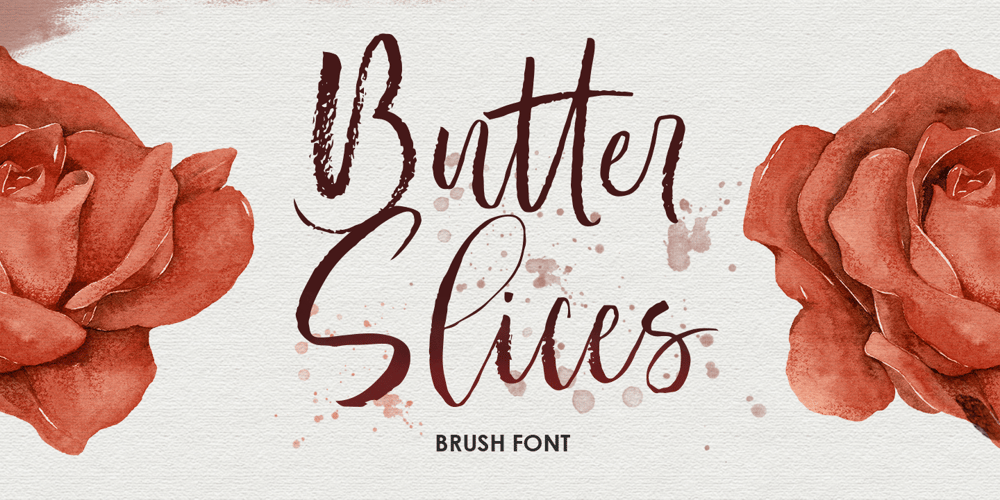
Butter Slices
Butter Slices font
Butter Slices Font Family was designed by Hendry Juanda and published by Letterhend. Butter Slices contains 1 styles and family package options. Introducing, Butter Slices – Brush Script. A beautiful modern calligraphy script based on manual hand writing. The natural flow with the swashes make this font looks even more prettier. This type of font perfectly made to be applied especially in wedding invitation, labels, logos, magazines, books, greeting / wedding cards, packaging, fashion, make up, stationery, novels, labels or any type of advertising purpose.Features : uppercase & lowercase numbers and punctuation multilingual swash and ligature alternates PUA encoded We highly recommend using a program that supports OpenType features and Glyphs panels like many of Adobe apps and Corel Draw, so you can see and access all Glyph variations